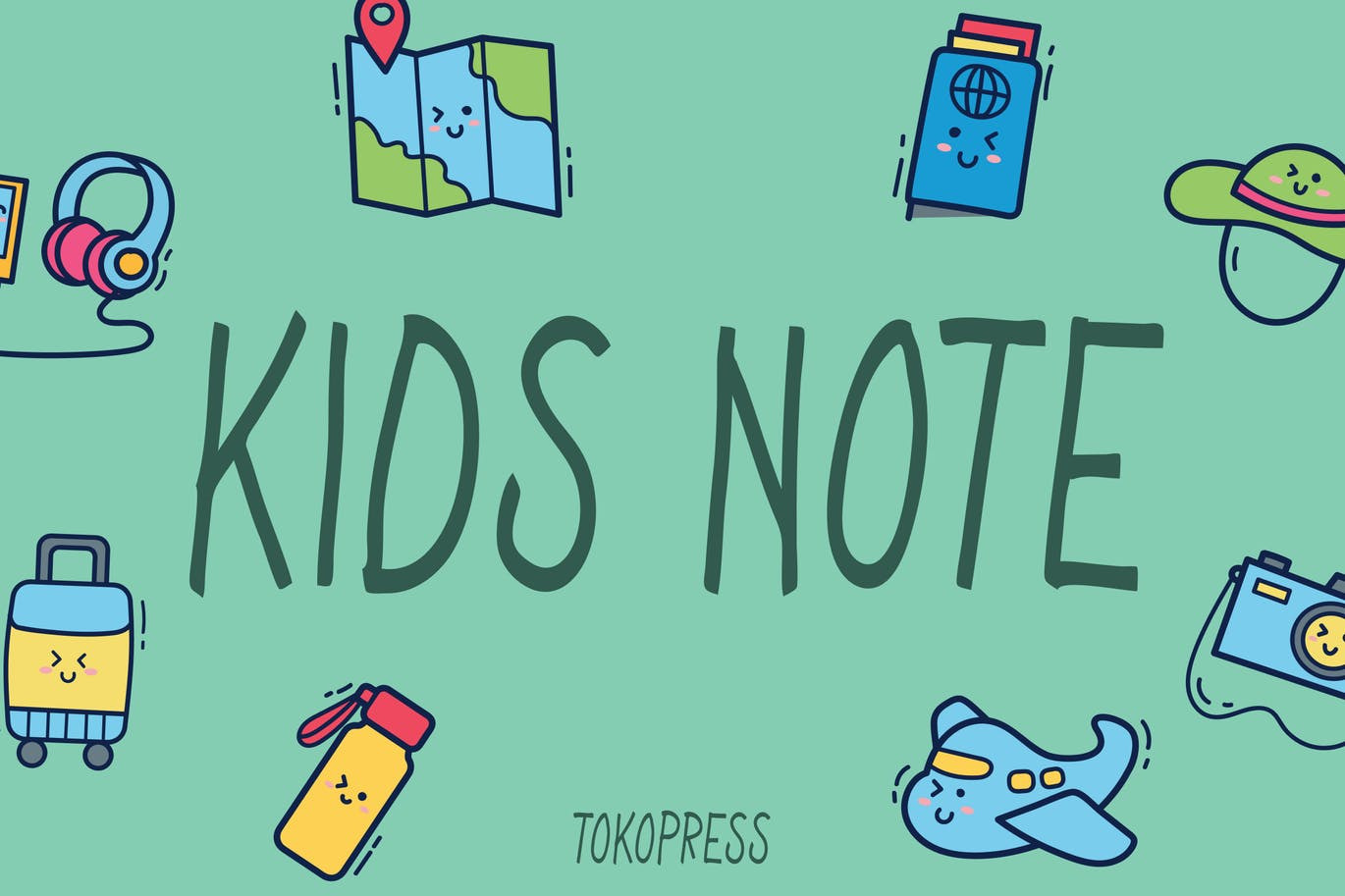
Kids Note - Handwriting font
Light-hearted sans serif font that match perfectly to any kids book and children related business purpose.
Suit perfectly for children book and business segmented magazine, poster, movie title, music poster, youtube covers, youtube thumbnails, social media page covers and so on...